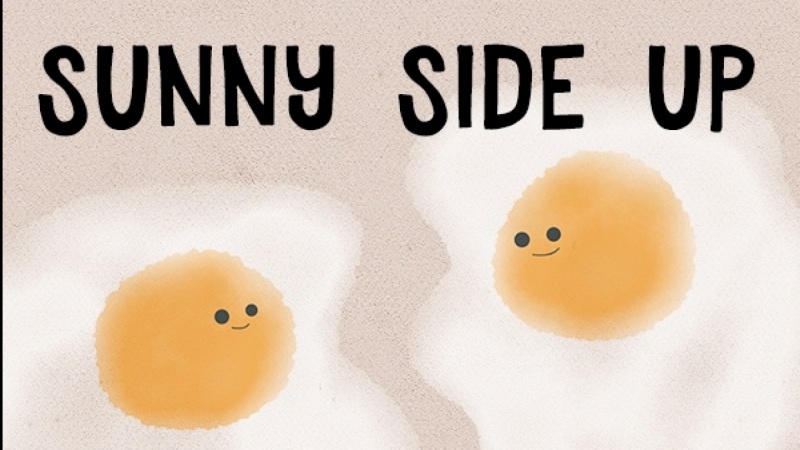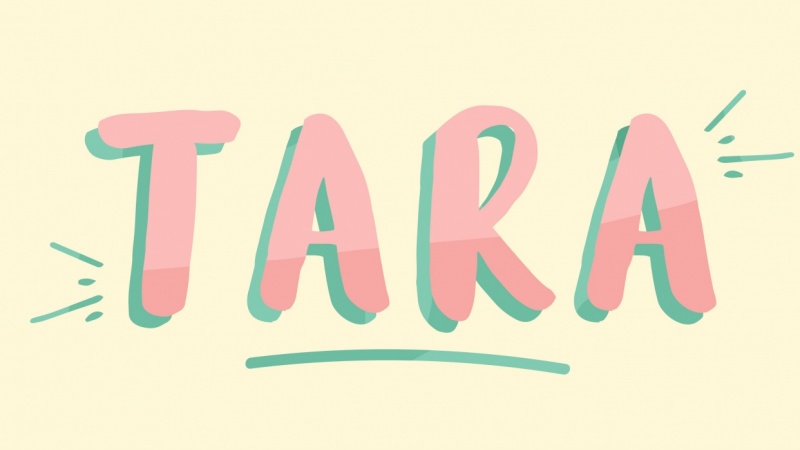
Paper to Digital: Create Your Own Hand Drawn Font
Love typography? Have you always wanted to design your own typeface? Guess what: you don't have to be an expert to create your own font. Learn how designer and illustrator Jenn Coyle of Hello Brio Studio creates hand drawn fonts. In this 50-minute class, you’ll learn all the steps of font-making from sketching to digitizing. By the end, you’ll have a personalized all-caps font that you love. Make sure to read the full Project Assignment before getting started.
In this class, you'll learn first and foremost that when you're creating your own font, it doesn't have to be perfect to be awesome.
I will take you through the entire process of hand drawn font creation, from brainstorming to sketching, then from digitizing in Photoshop and Illustrator to plugging in your letterforms into Glyphs App (Mac only). I'll teach a lot of time-saving tips and tricks that will allow you to create your own all-caps font in no time.
- Learn where to start when brainstorming letter styles
- Find font inspiration from what you already know
- Typography anatomy basics and what goes into making a cohesive typeface
- Best practices for sketching and inking your hand lettering
- Digitize your artwork quickly using Photoshop and Illustrator
- Use how to use Glyphs Mini App
- Export and create your all-caps desktop font!
This course was created with designers in mind. But even if you aren't a Photoshop or Illustrator expert, you will be able to follow along and learn all of my tricks. No matter what - the main purpose is to inspire you to create your own font and make it your own!